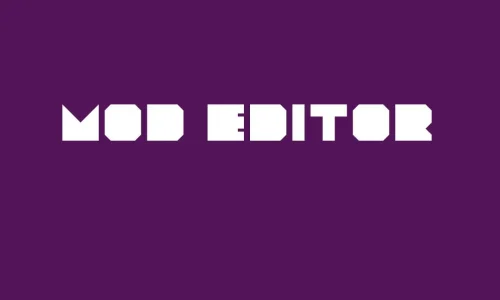
Today we are going to provide a very beautiful font that has clear textures and an appearance named Graphique font. This typeface has belonged to the Decorative family. The designer of this elegant font is Ralph M. Unger. This font is published under the banner of the Profonts foundry.
This font has based on large characters including Uppercase, Lowercase, Stylistic Alternates, Icons, General Punctuations, and symbolic letters. This typeface has been comprised of Goggle fonts and it is also very famous for copy-paste functions. Lego Font is very similar to this typeface.